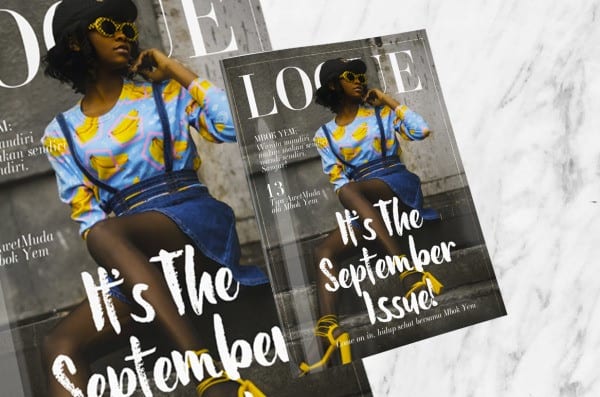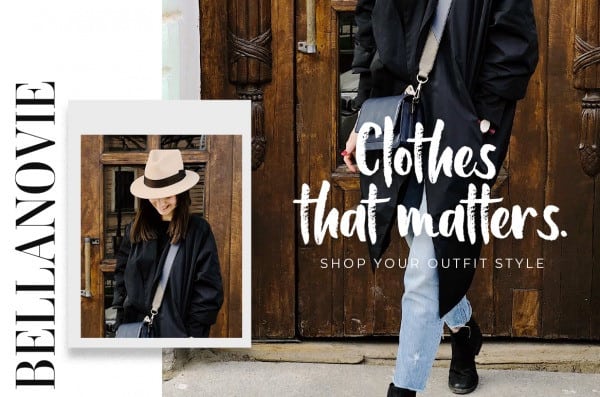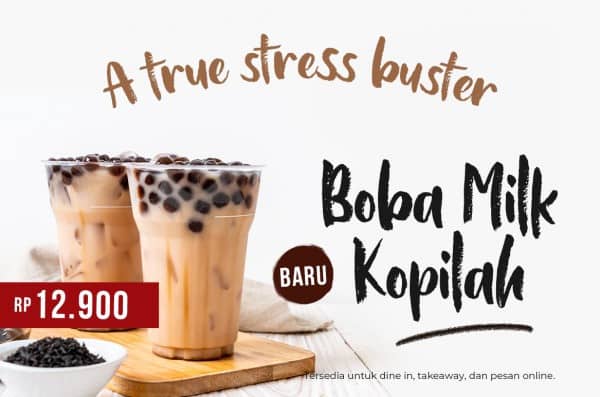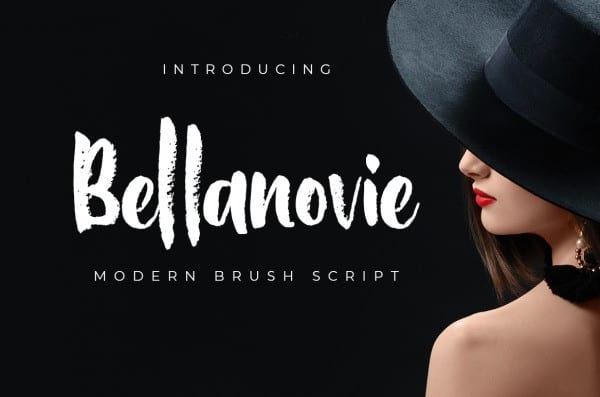
Bellanovie Brush Font
Glad to introduce you a new Bellanovie Brush Font, created from rough brush strokes, made manually with hand. Can make it easier to convey the message in your design and create a unique impression of bold and adventurous. It’s designed and shared by Nurf Designs. This ypeface is a handwritten font with a chalk texture. It is suitable for promotional designs, labels, packaging, branding, logotypes and much more.